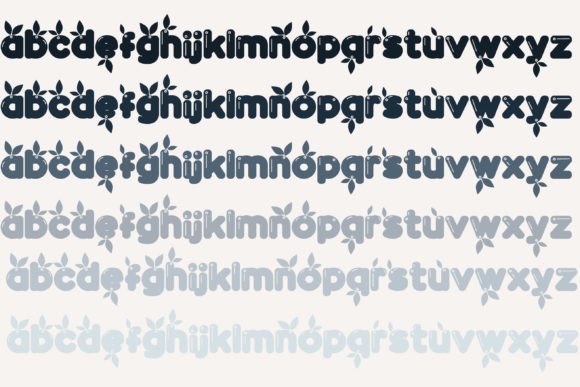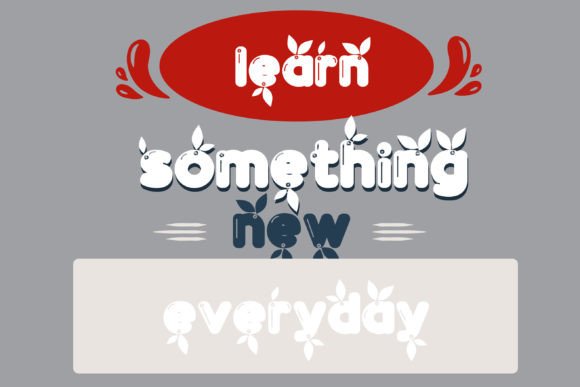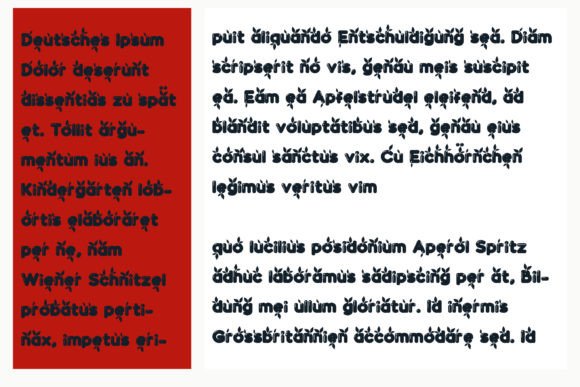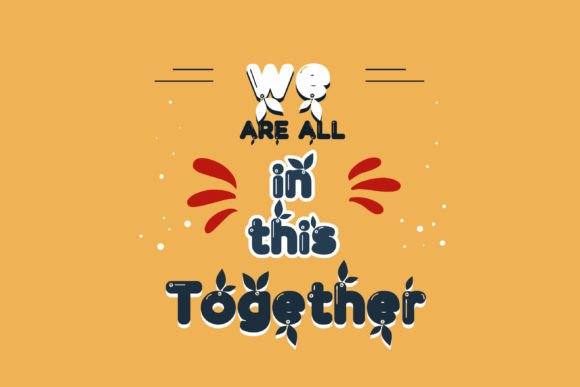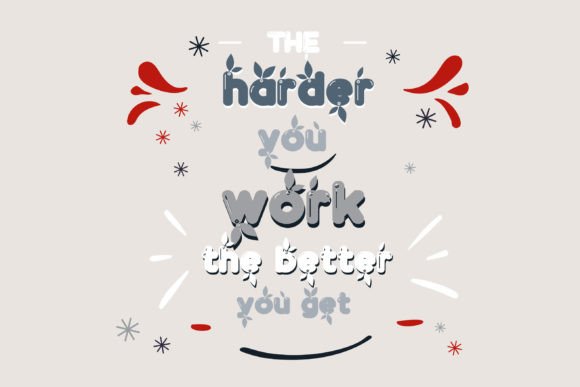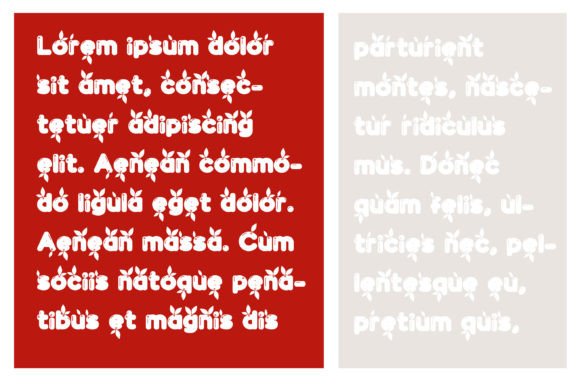
Cranberry Font: The Sweet and Whimsical Display Font for Your Creative Projects
Are you looking for a font that can add a touch of fun and playfulness to your designs? Look no further than the Cranberry Font! This adorable display font is perfect for creatives who want to infuse their projects with a sense of whimsy and sweetness. In this article, we’ll dive into the world of Cranberry Font and explore its features, uses, and benefits for designers and crafters.
What is Cranberry Font?
Cranberry Font is a fun and adorable display font that is sure to capture the hearts of designers and crafters alike. Its whimsical, sweet, and delicious characters make it suitable for a wide spectrum of applications, from branding and advertising to packaging and crafting. The font’s playful and carefree vibe is perfect for projects that require a dash of personality and charm.
Features of Cranberry Font
So, what makes Cranberry Font so special? Here are some of its key features:
- Whimsical characters: Cranberry Font features playful and whimsical characters that are sure to add a touch of fun to your designs.
- Sweet and delicious: The font’s sweet and delicious aesthetic makes it perfect for projects that require a sense of warmth and approachability.
- Display font: Cranberry Font is a display font, making it perfect for headlines, titles, and other display text.
- Versatile: The font is suitable for a wide range of applications, from digital designs to print materials.
Uses of Cranberry Font
Cranberry Font is a versatile font that can be used in a variety of creative projects. Here are some ideas to get you started:
- Branding and advertising: Use Cranberry Font to create eye-catching logos, ads, and marketing materials that are sure to grab attention.
- Packaging design: Add a touch of whimsy to your product packaging with Cranberry Font.
- Crafting and DIY projects: Use Cranberry Font to create adorable titles and headings for your crafting and DIY projects.
- Digital designs: Cranberry Font is perfect for digital designs, including social media graphics, blog posts, and website headers.
Benefits of Using Cranberry Font
So, why should you choose Cranberry Font for your creative projects? Here are some benefits:
- Adds a touch of personality: Cranberry Font adds a touch of personality and whimsy to your designs, making them stand out from the crowd.
- Easy to read: Despite its playful aesthetic, Cranberry Font is easy to read and understand.
- Versatile: The font is suitable for a wide range of applications, making it a great addition to your font library.
- Fun to use: Cranberry Font is a joy to use, making the design process more enjoyable and creative.
Tips for Using Cranberry Font
Here are some tips for using Cranberry Font in your creative projects:
- Use it sparingly: Cranberry Font is a display font, so use it sparingly to add emphasis and impact to your designs.
- Pair it with other fonts: Experiment with pairing Cranberry Font with other fonts to create interesting and dynamic typography.
- Experiment with colors: Cranberry Font looks great in a variety of colors, so don’t be afraid to experiment and find the perfect hue for your design.
Cranberry Font is a fun and adorable display font that is sure to add a touch of whimsy and sweetness to your creative projects. With its playful and carefree vibe, it’s perfect for designers and crafters who want to infuse their designs with personality and charm. Whether you’re working on a branding project, packaging design, or crafting and DIY project, Cranberry Font is a great choice. So why not give it a try and see the magic for yourself?